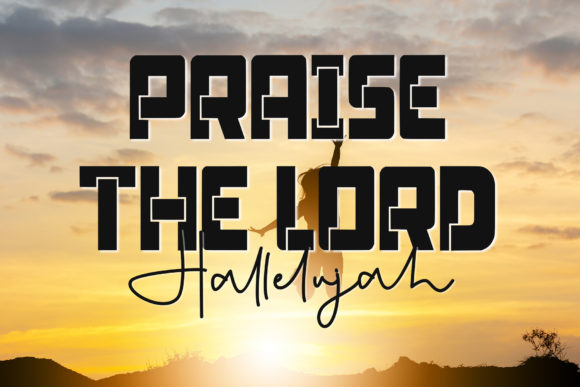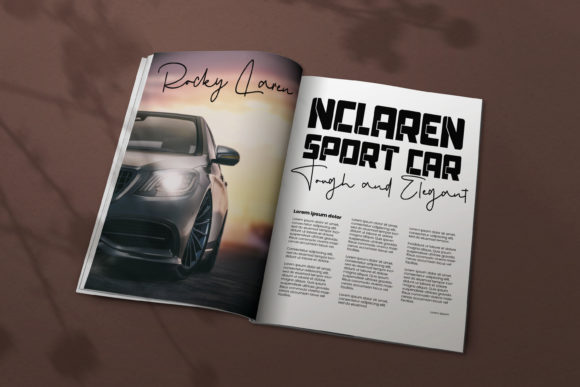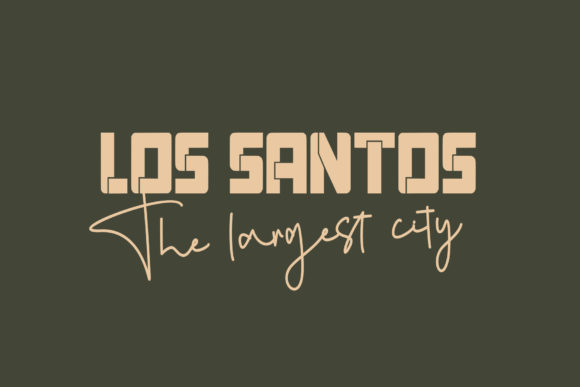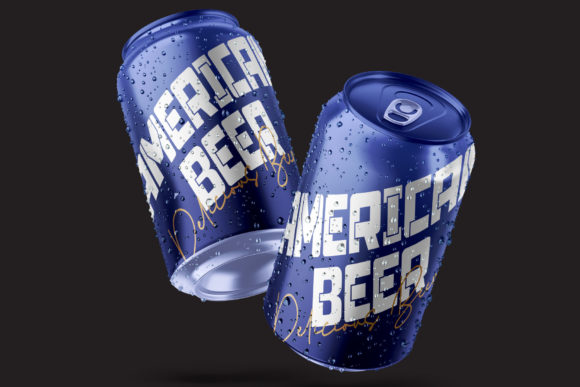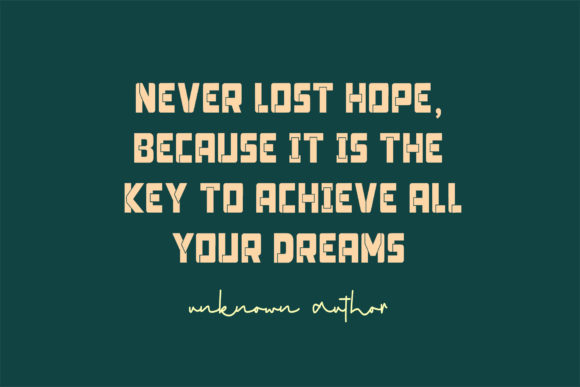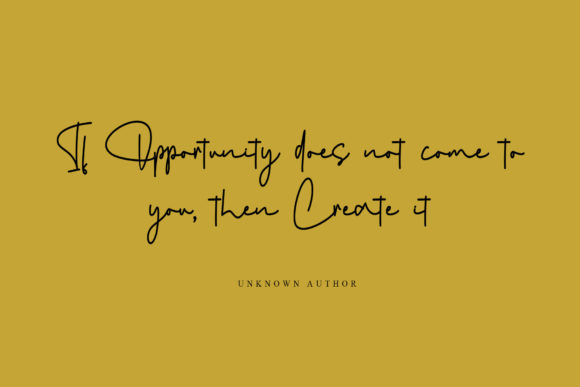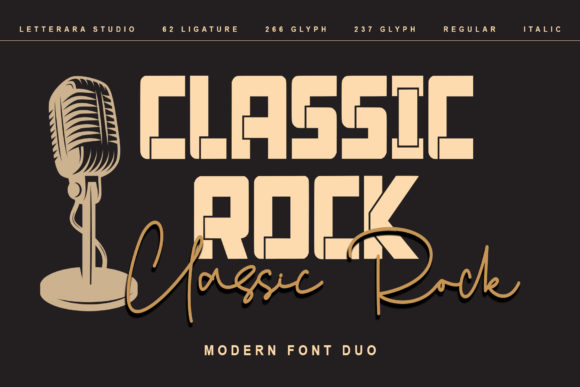
Unleash the Power of Classic Rock Font: Elevate Your Designs with a Cool and Bold Duo
Are you tired of using the same old fonts in your designs? Look no further than the Classic Rock Font, a cool and bold duo font that is sure to take your creations to the next level. This incredible font, consisting of a display and script font, is perfect for designers and crafters looking to add a touch of rockstar flair to their work.
The Perfect Combination: Display and Script Fonts
The Classic Rock Font is a versatile duo font that combines a bold display font with an elegant script font. This perfect pairing allows you to create stunning designs that are both eye-catching and sophisticated. The display font is perfect for headlines, titles, and other attention-grabbing elements, while the script font adds a touch of elegance and whimsy to your designs.
Endless Possibilities: No Matter the Topic
One of the best things about the Classic Rock Font is its versatility. No matter the topic or theme of your design, this font is sure to be an incredible asset to your font library. Whether you’re creating a bold and edgy design for a rock band or a more elegant and sophisticated design for a luxury brand, the Classic Rock Font is the perfect choice.
Elevate Any Creation
The Classic Rock Font has the potential to elevate any creation, from logos and branding to posters and social media graphics. Its unique and stylish design is sure to grab attention and leave a lasting impression on your audience. With this font, you can add a touch of personality and flair to your designs, making them stand out from the crowd.
Confidently Add it to Your Favorite Creations
So why wait? Add the Classic Rock Font to your favorite creations and get ready to be amazed by the outcome. With its ease of use and versatility, you can confidently use this font in a variety of design projects, from print to digital. Whether you’re a seasoned designer or just starting out, this font is sure to become a staple in your font library.
What Makes Classic Rock Font So Special?
So what makes the Classic Rock Font so special? Here are just a few of its standout features:
- Unique and Stylish Design: The Classic Rock Font features a unique and stylish design that is sure to grab attention.
- Versatile and Flexible: This font is perfect for a variety of design projects, from print to digital.
- Easy to Use: The Classic Rock Font is easy to use and can be easily integrated into your design workflow.
- High-Quality: This font is of the highest quality, ensuring that your designs look professional and polished.
Tips and Tricks for Using Classic Rock Font
Here are a few tips and tricks for using the Classic Rock Font in your designs:
- Use it as a Headline Font: The display font is perfect for headlines and titles, adding a touch of drama and flair to your designs.
- Pair it with Other Fonts: The script font pairs perfectly with other fonts, adding a touch of elegance and sophistication to your designs.
- Experiment with Colors: The Classic Rock Font looks great in a variety of colors, so don’t be afraid to experiment and find the perfect color scheme for your design.
In conclusion, the Classic Rock Font is a cool and bold duo font that is sure to elevate your designs to the next level. With its unique and stylish design, versatility, and ease of use, this font is perfect for designers and crafters looking to add a touch of rockstar flair to their work. So why wait? Add the Classic Rock Font to your font library today and get ready to create stunning designs that are sure to leave a lasting impression.